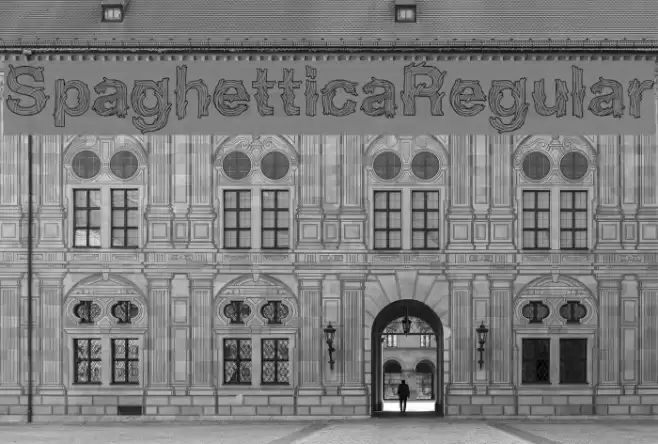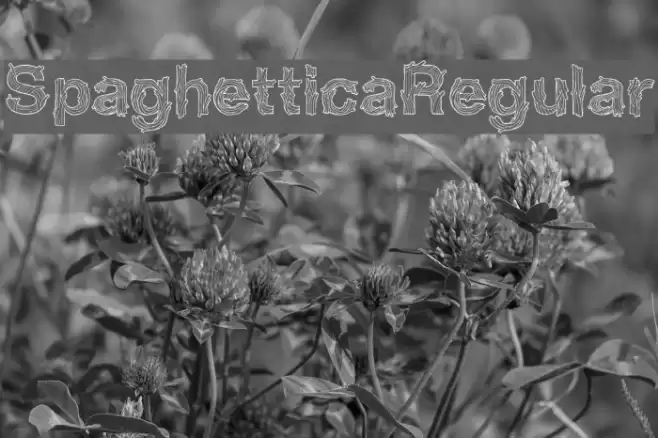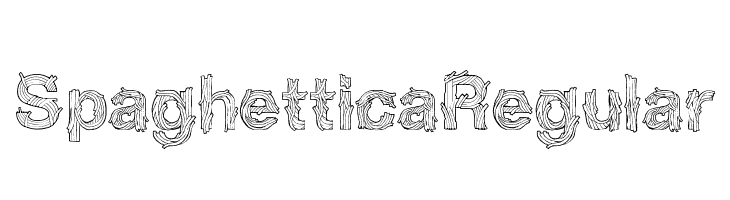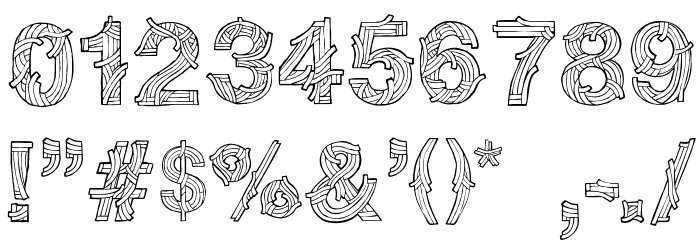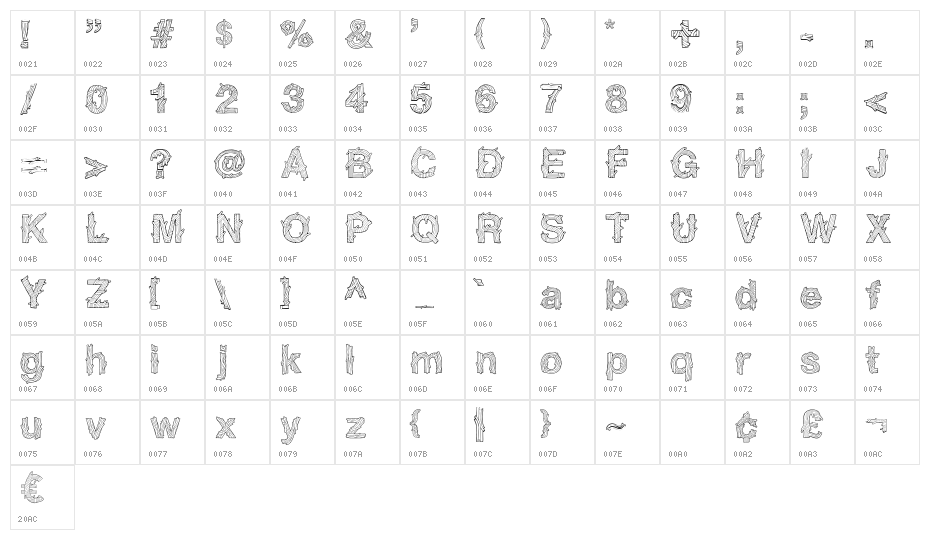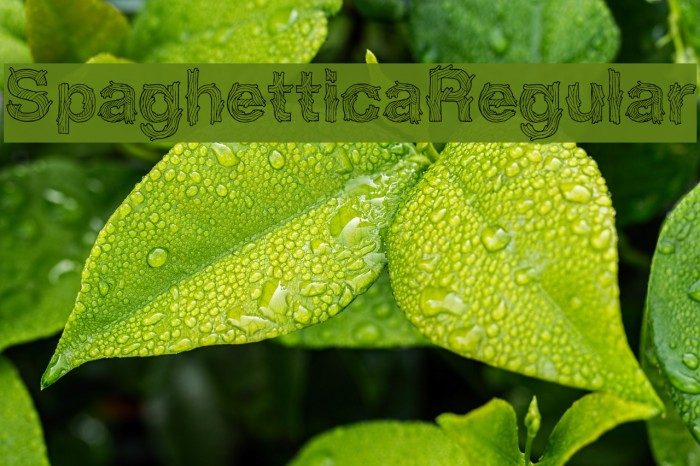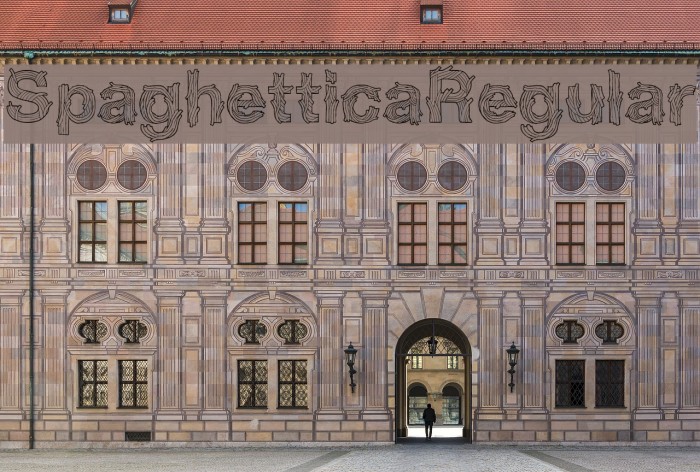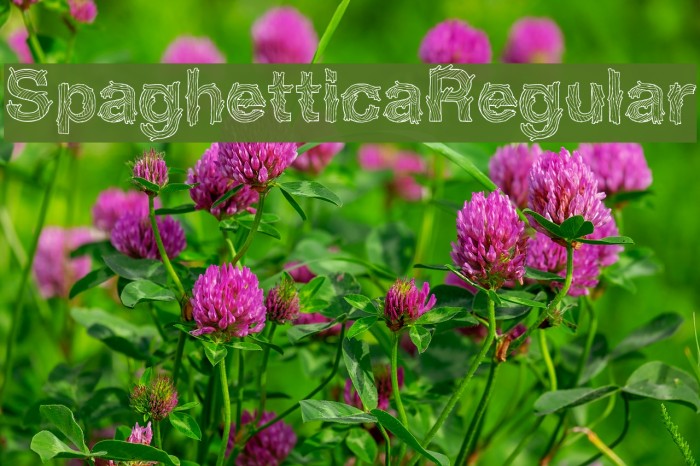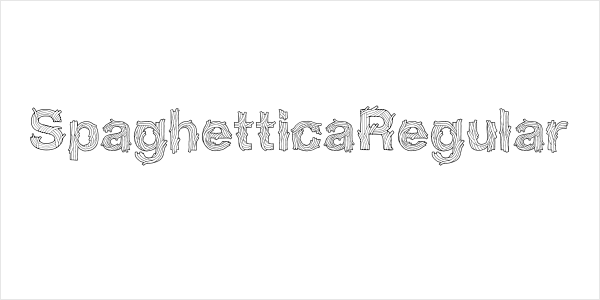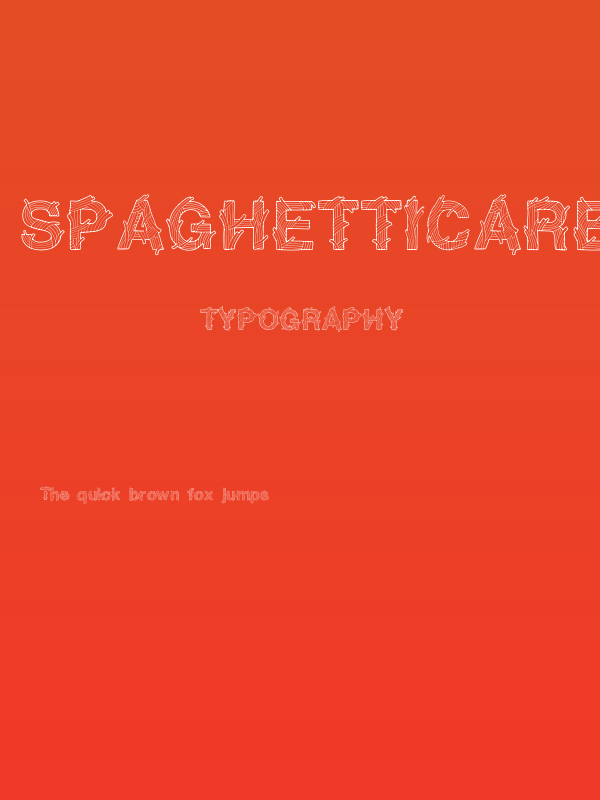
SpaghetticaRegular Font
SpaghetticaRegular Description
This font features a unique and playful design, with each character appearing as if it is crafted from strands of spaghetti. The letters are bold and have a hand-drawn, whimsical quality, making them stand out with their intricate line work and texture. The font maintains a consistent thickness throughout, with a slightly irregular and organic feel that adds to its charm. It is highly decorative and captures attention with its creative and artistic style, perfect for projects that require a fun and engaging visual element.
- Proposed Projects: Ideal for children's books, playful branding, food-related designs, and creative posters.